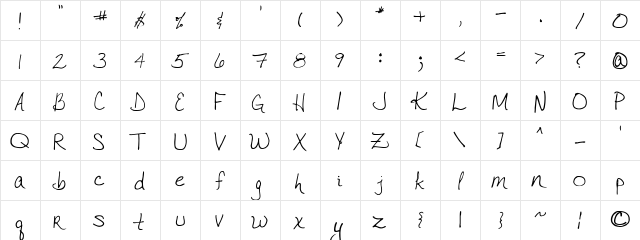
VTC JoeleneHand Regular
Design Context for VTC JoeleneHand Typeface
VTC JoeleneHand flows with the natural rhythm of handwritten lettering, making it ideal for designs that call for warmth and personal expression.
Font Pairing: Combine VTC JoeleneHand with a simple geometric sans for maximum contrast — the tension between flowing curves and clean structure is a classic typographic pairing.
Pro Tip: Use VTC JoeleneHand for short runs of text — names, titles, or taglines. Extended body copy in script faces tires the eye quickly.